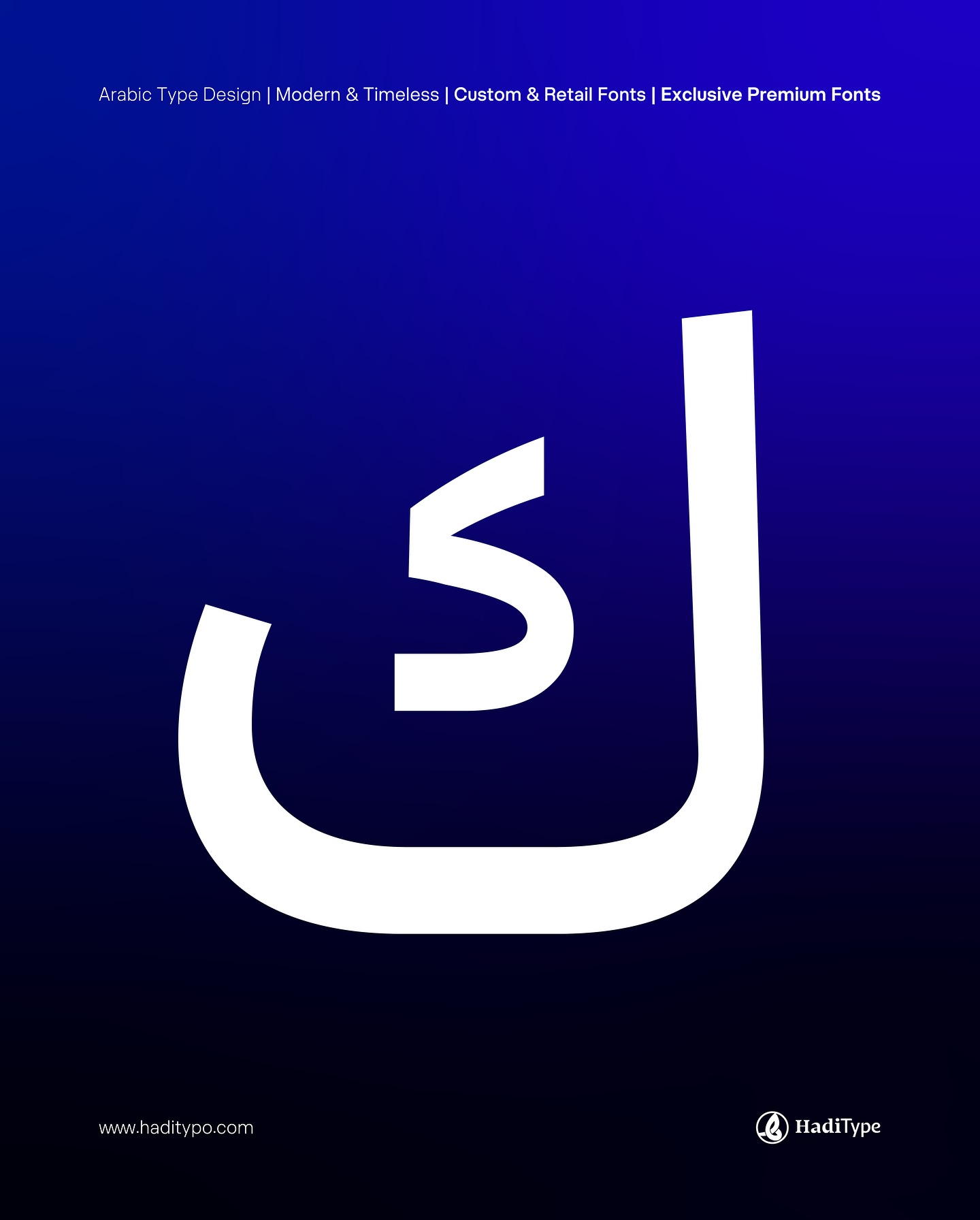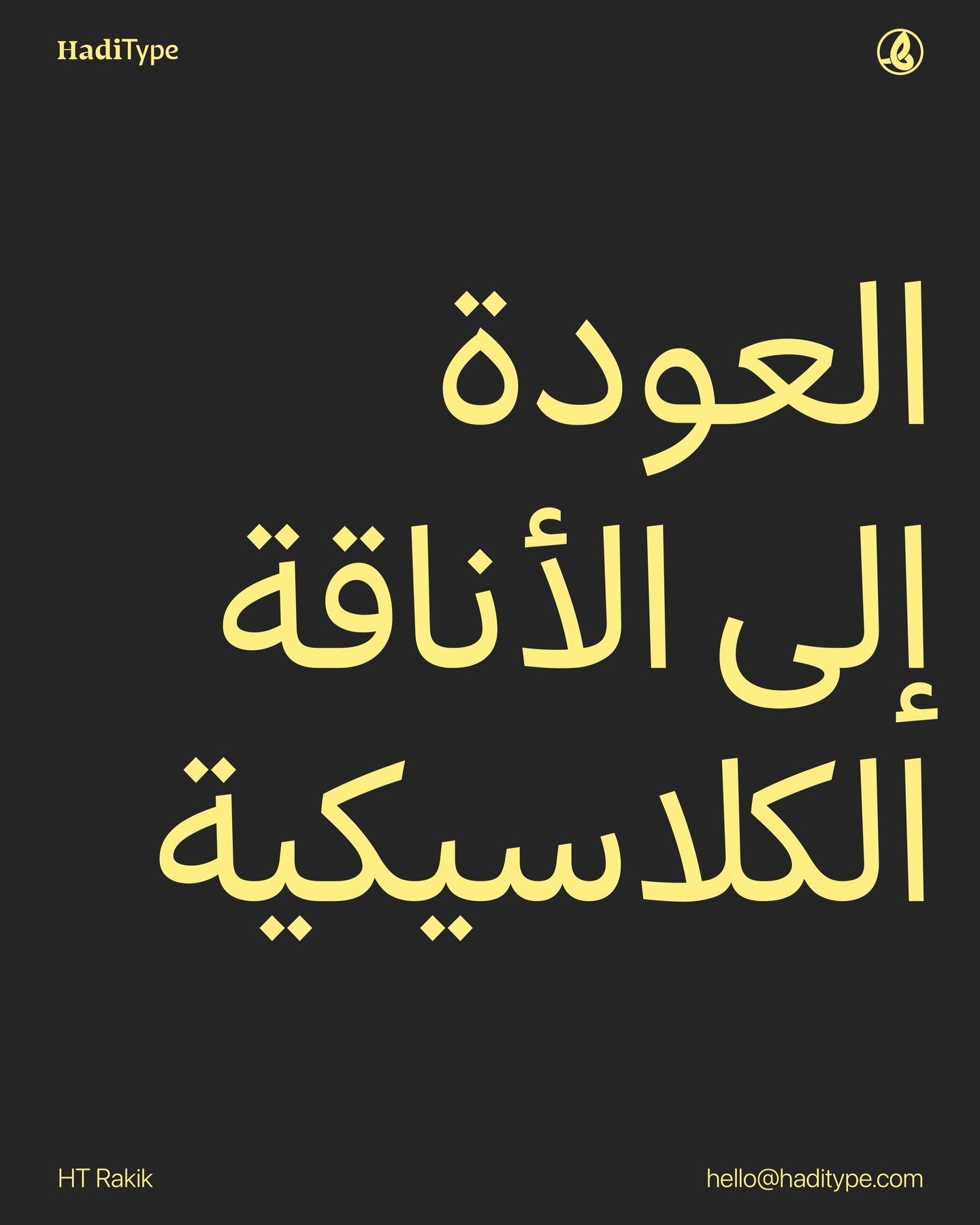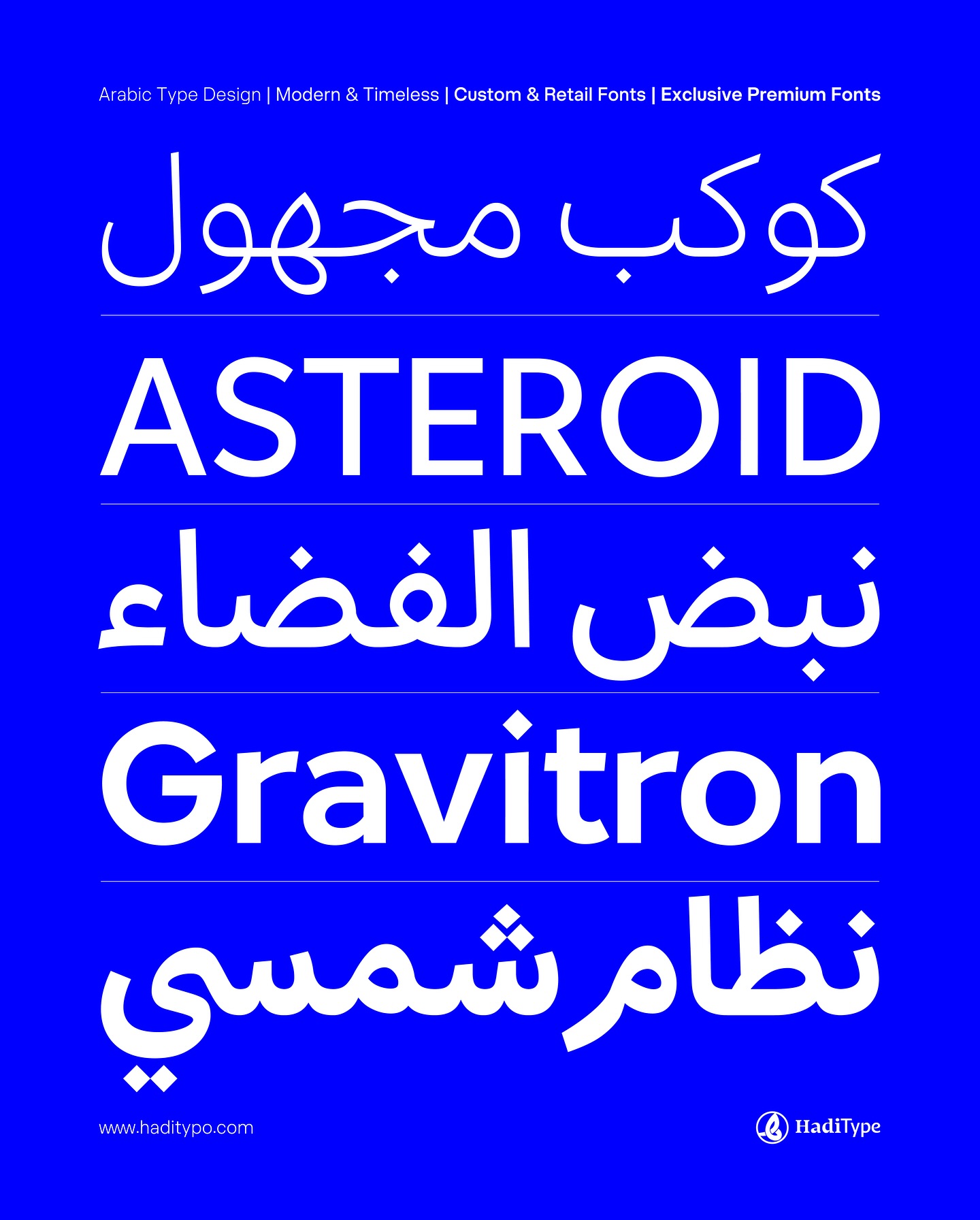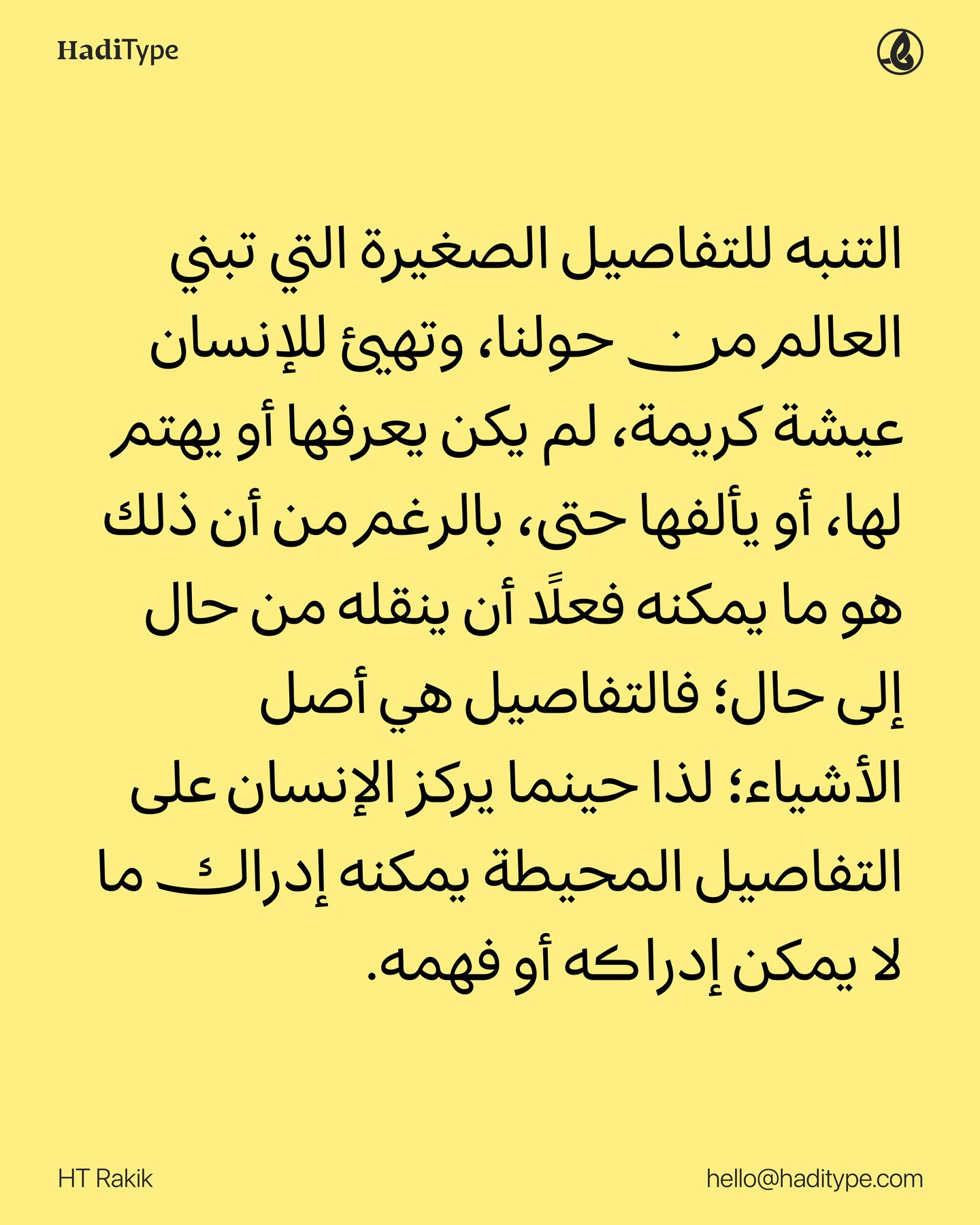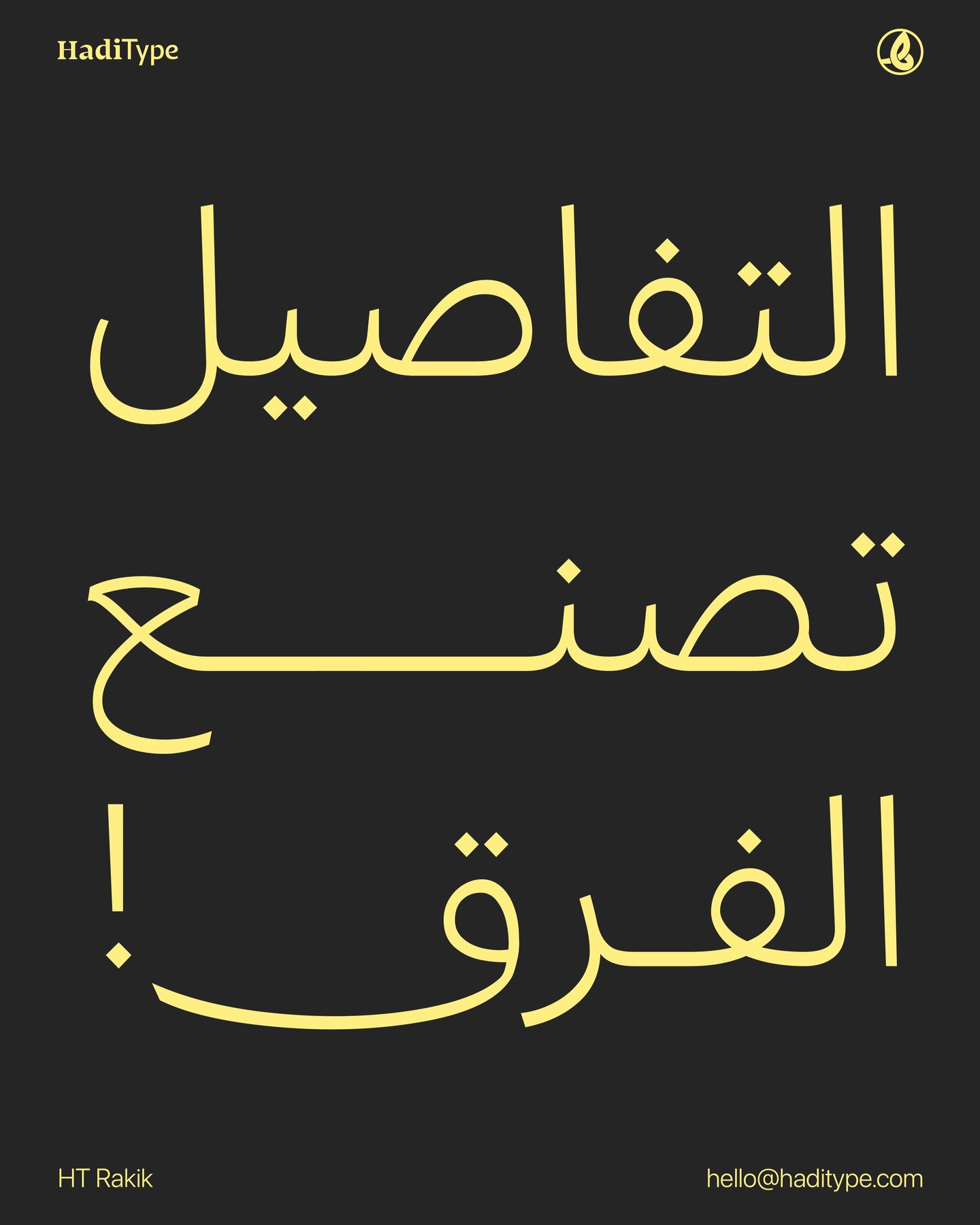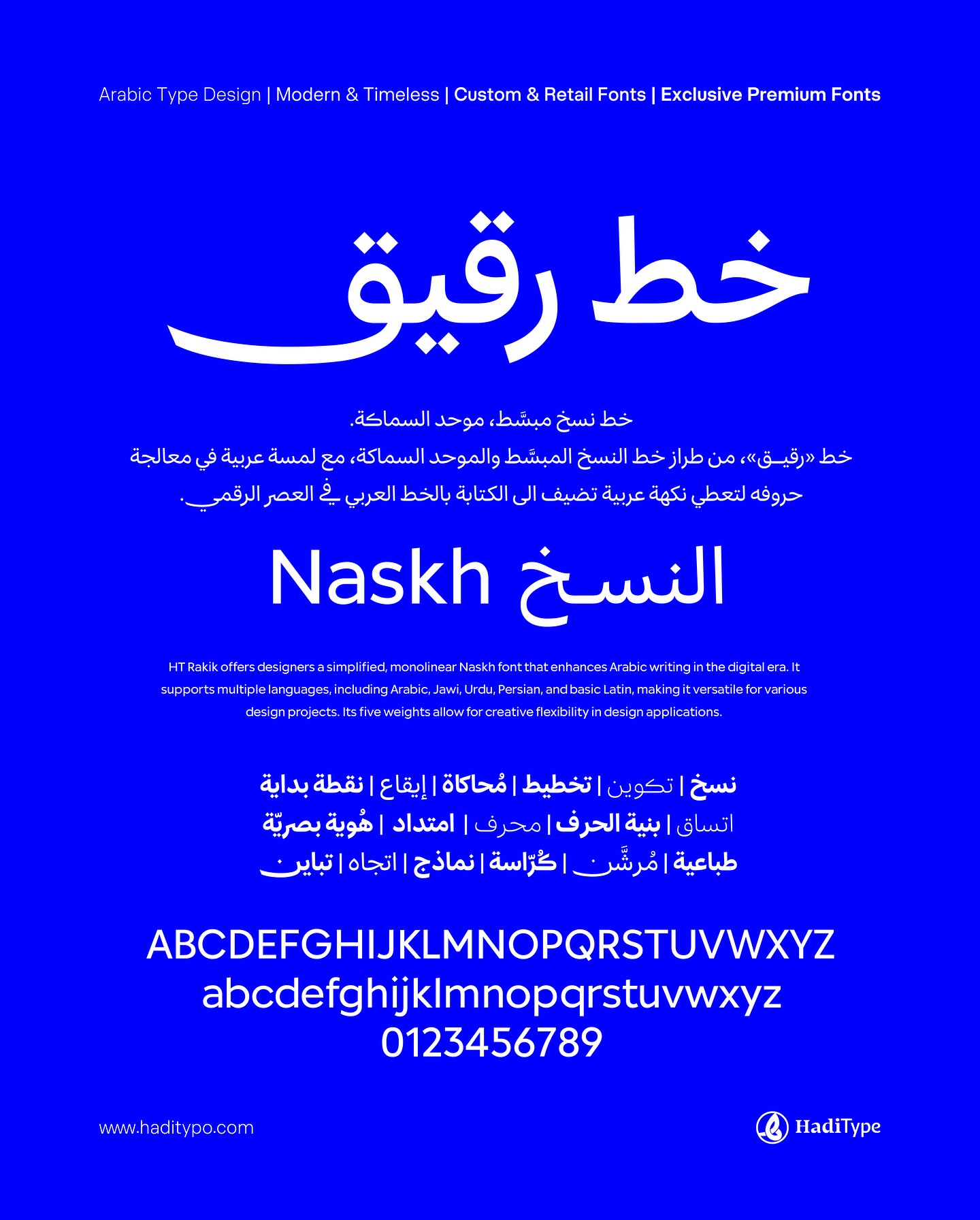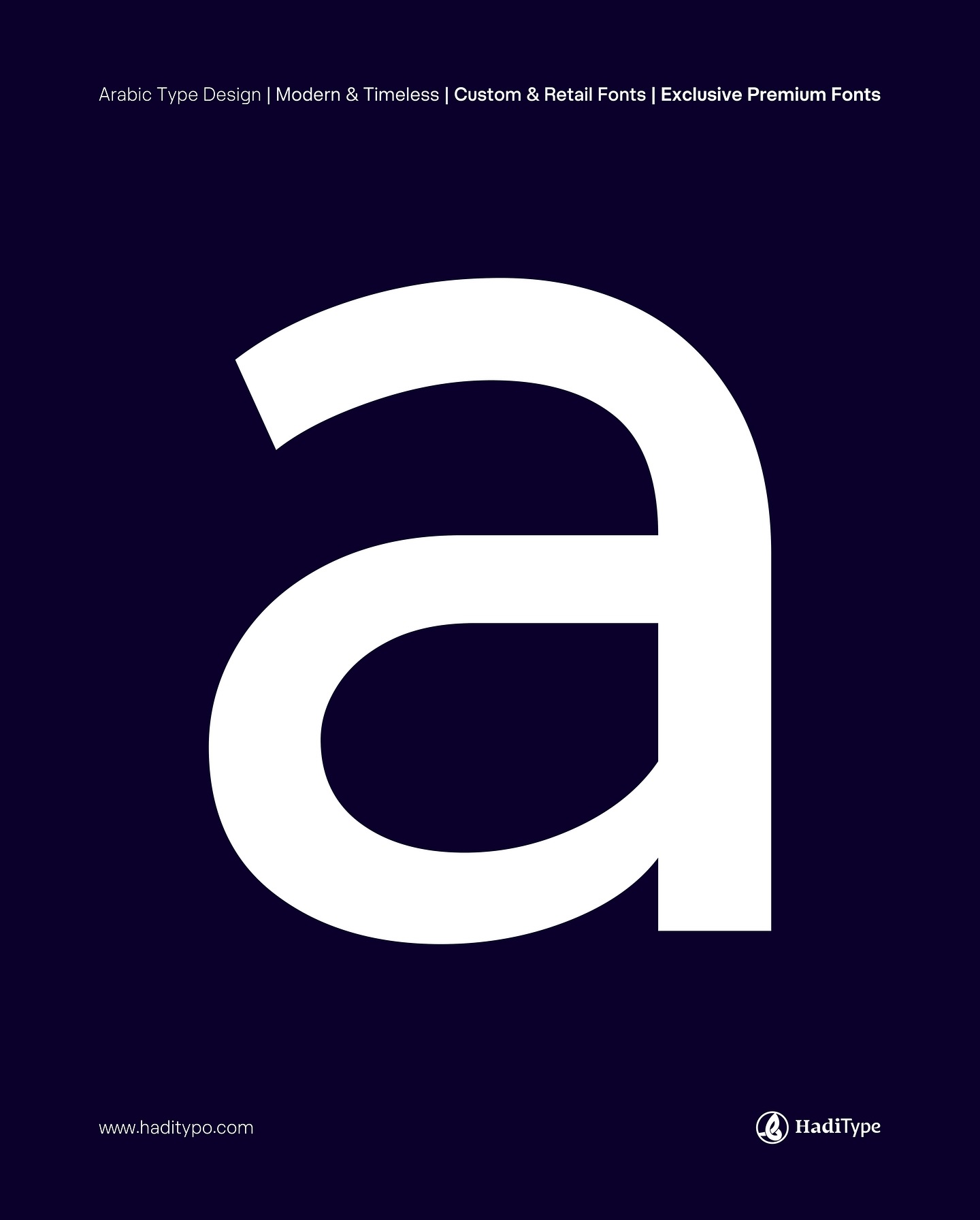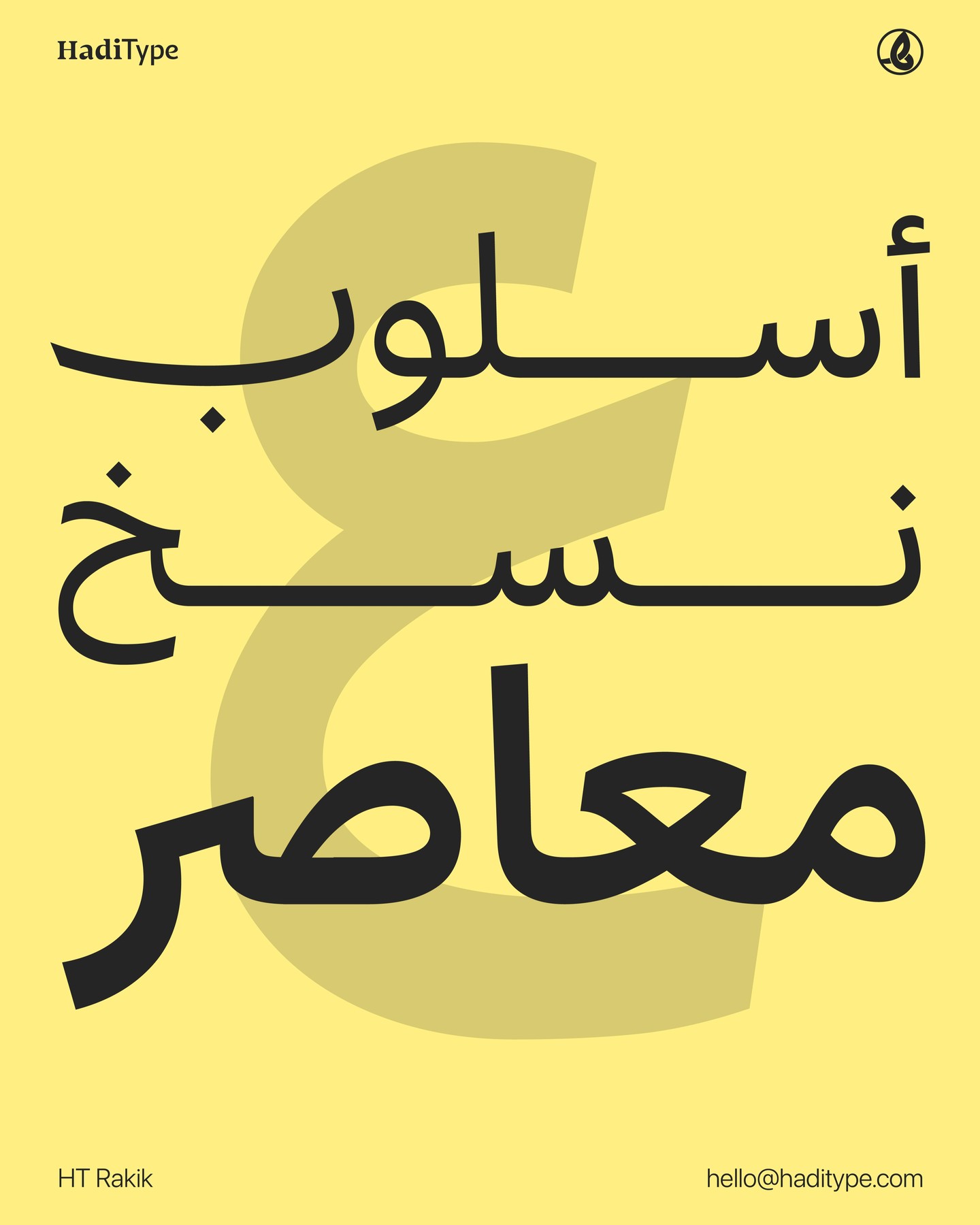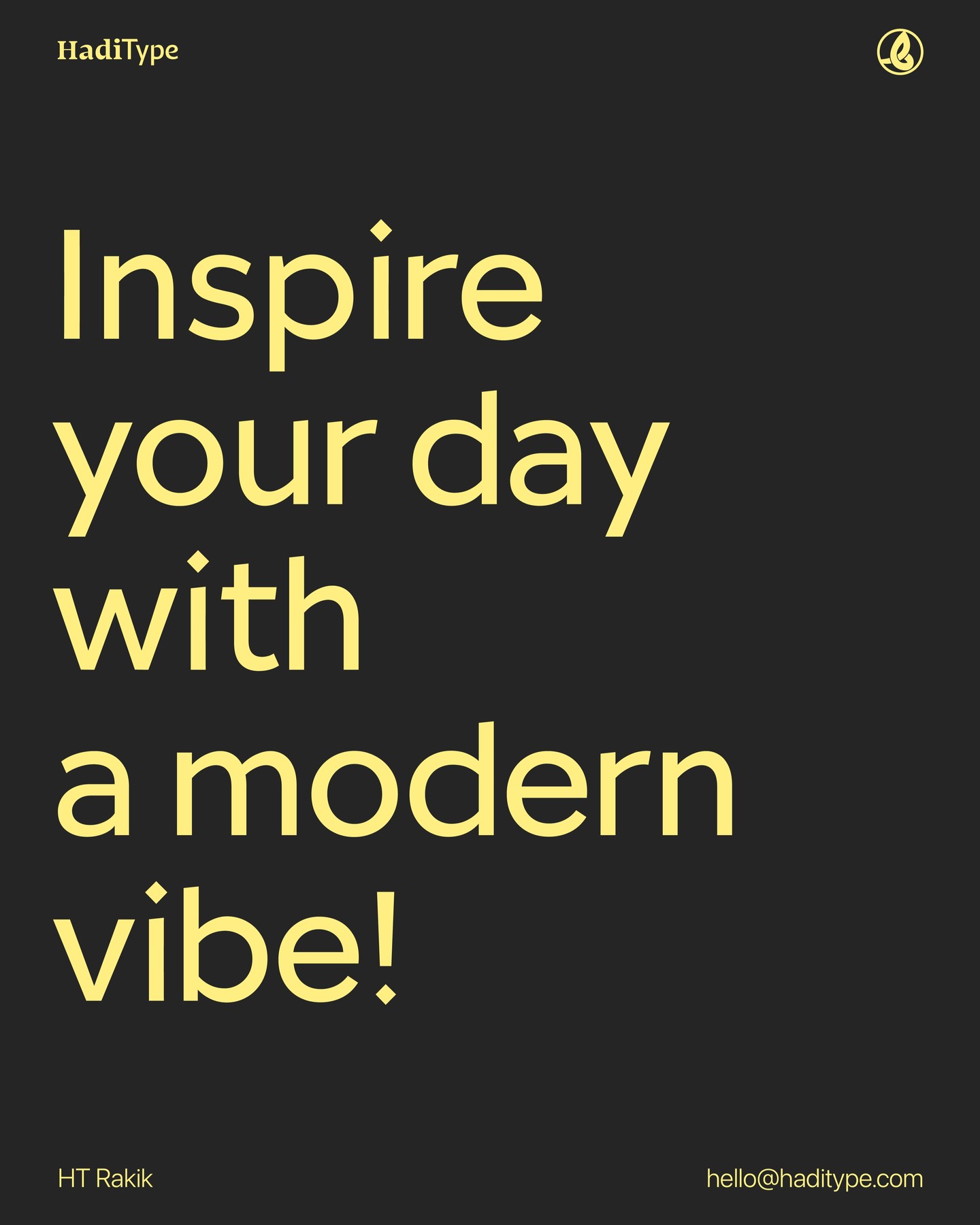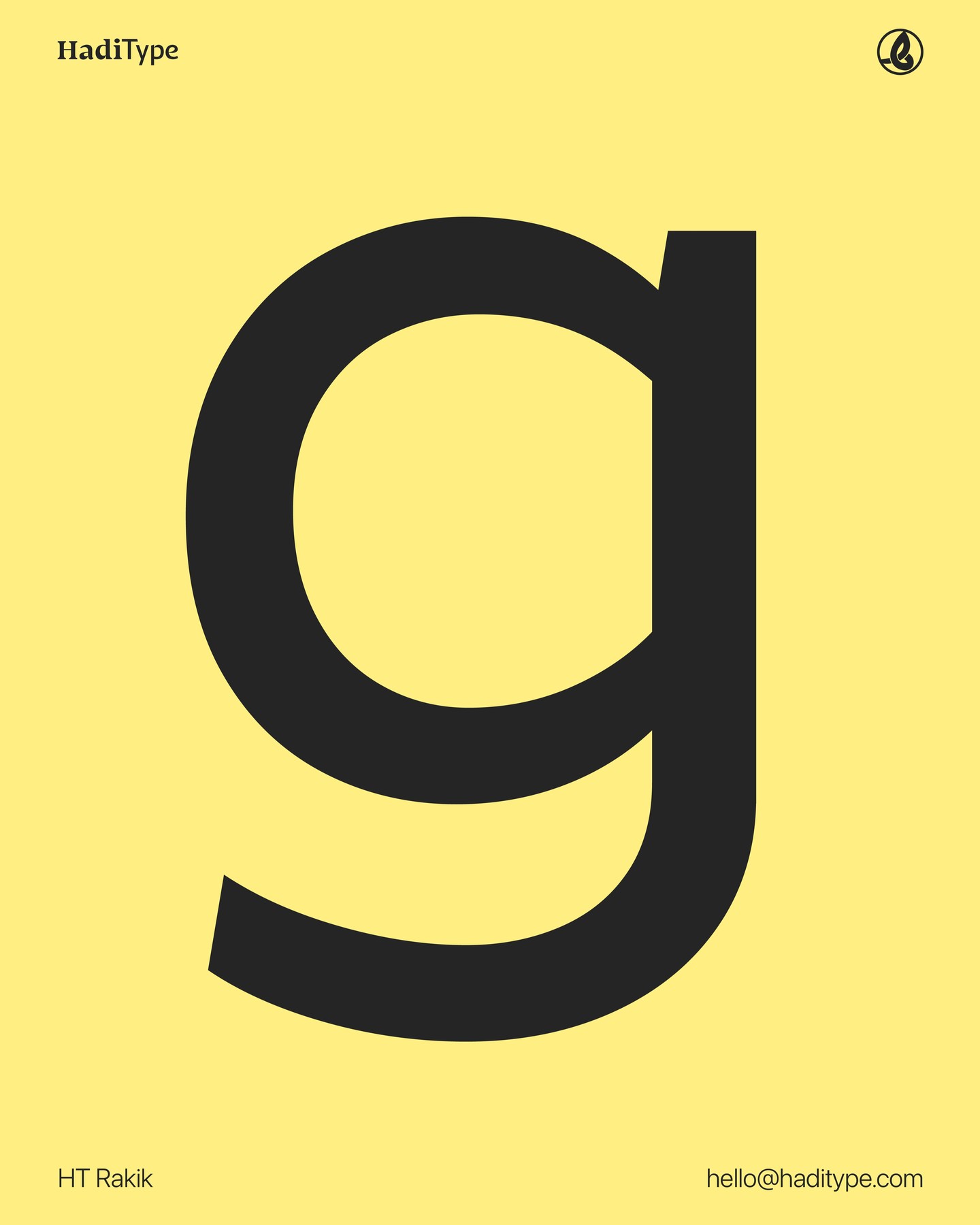
HT Rakik
"HT Rakik" is a simplified, monolinear Naskh font with an Arabic essence in its letter design that enhances Arabic writing in the digital era. The font supports Arabic, Jawi, Urdu, Persian, and basic Latin languages, with five weights for design flexibility.
Supported Languages: Arabic, Jawi, Urdu, Persian, and basic Latin.
OpenType Features: ccmp, Contextual Alternates, Stylistic Alternates, Standard Ligatures, Swash, Dictionary Ligatures, Required Ligatures.
Designer: Muhammed Hadi
Foundry: HadiType Foundry